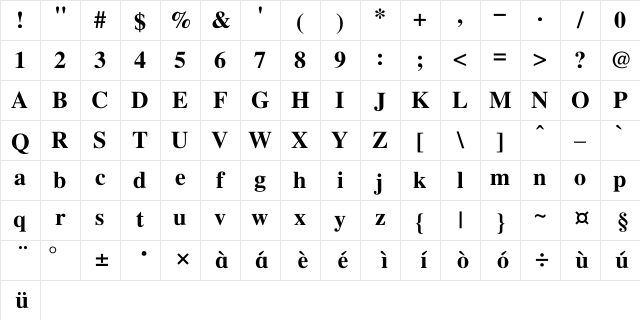
Complete FZXiaoBiaoSong-B05S Regular glyph index. Displaying only characters natively supported by FZXiaoBiaoSong-B05S Regular font.
FZXiaoBiaoSong-B05S is a composed and adaptable typeface that performs quietly and consistently across a wide range of design contexts.